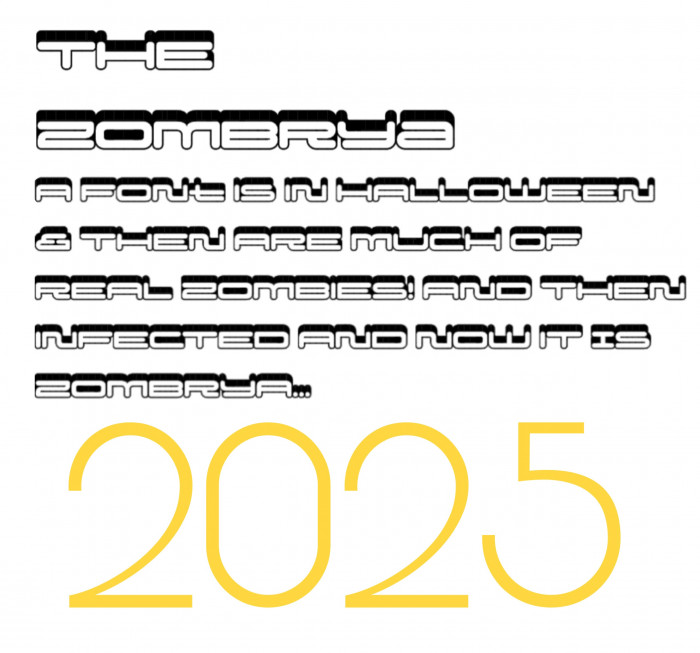
Soft and rounded NUMBERS like long fairground balloons... and shadowed. The first was the 8 and then all the others arrived.
What a lovely extruded/drop shadow interpretation of an Euphoric-adjacent type. It's also a really timely release with the Y2K aesthetic going full-fledged in the design sphere now.
Very nice fresh perspective that shines with the diacritics.
It makes me want furniture shaped after these glyphs :-D
This font has the ability to bring a big smile to anyone's face
What a beauty!
Excellent work!
Outstanding.
Excellent extrusion work. Would have made a great letraset transfer sheet.
This font would look great as stickers, like on the side of a mountain bike or rally car... Awesome!
I'm a little jealous, because I've never dared to try a font like this before.  I'm a little envious, because I've never dared to try proportions of this consistency before. I'm too emational, but I admire this technical and professional approach. “My husband is my witness!” and my approach is my gut feeling : )
Wow! I absolutely love the shadow on this font, you executed this font very well!
Damn boi he thicc
Also this is wonderful
Nice font! I might use this font for a movie, 10/10 (or 20/10, but thats impossible for me)
what a beautyful font. nice
hehehe long funny
Jumping Fun Fonts 🤫🤫😁😁😆😆
Very impressive! So y2k.